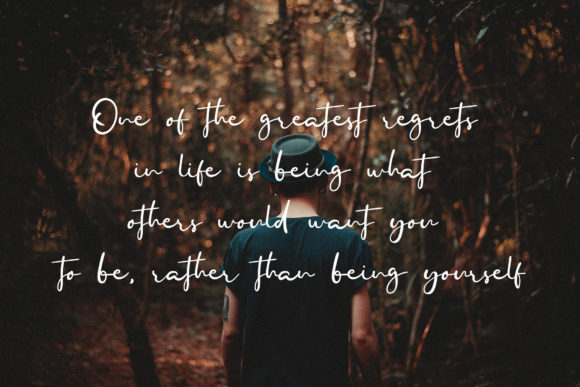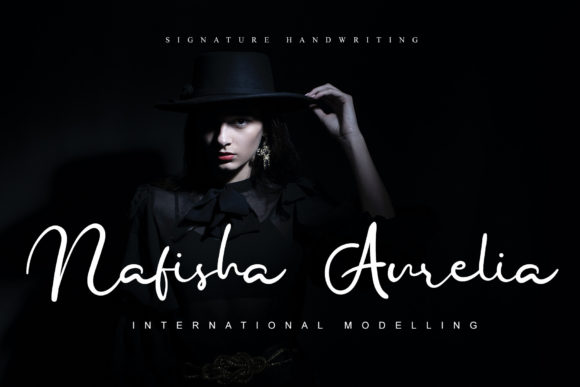
Hey Samantha Font
db-ku.com - Script & Handwritten -- Hey Samantha is a sweet and friendly handwritten font. Its natural and unique style makes it incredibly fitting for a large pool of designs. The only limit is your imagination!